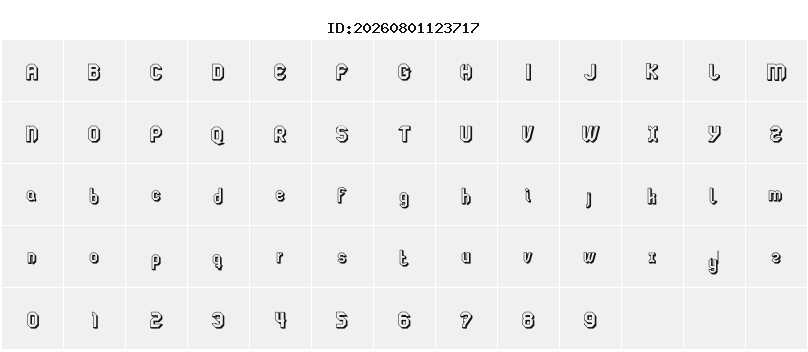
• Font Name: LGF LAGE LOGO tresD
• Designer: LGfonts - Manuel Lage
• Manufacturer: LGF FONTS
• Description: LAGE LOGO 3D Regular is a font by LGF FONTS, designed by LGfonts - Manuel Lage in 2002 revised) 2013 by LGF FONTS - Manuel Lage - Imprenta A. Lage. All rights reserved. La Coruña - España [Es] Spain - UE. Copyright (c) 2002 Manuel Lage - (revised) 2013 by LGF FONTS - Manuel Lage - Imprenta A. Lage. All rights reserved. La Coruña - España [Es] Spain - UE - LGF LAGE LOGO tresD es parte de la tipografía LGF LAGE LOGO · Gratis para uso personal - Free to Personal Uses
LGF LAGE LOGO tresD.otf is a modern, elegant sans-serif font designed for ultimate readability and visual harmony. Perfect for branding, headlines, web design, and print materials.